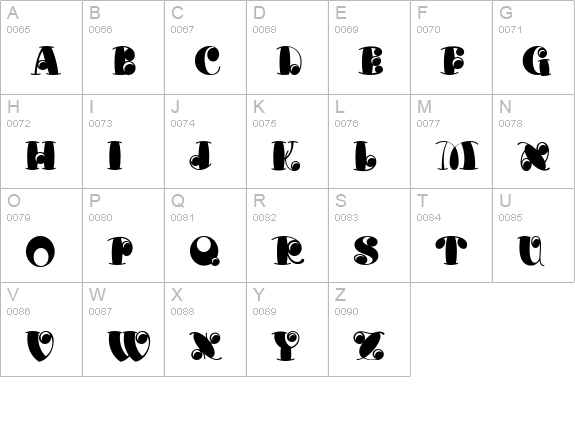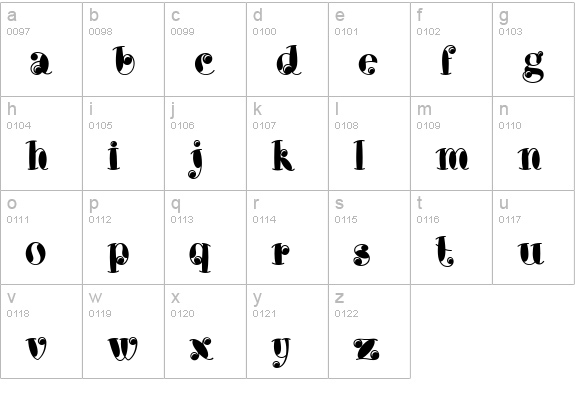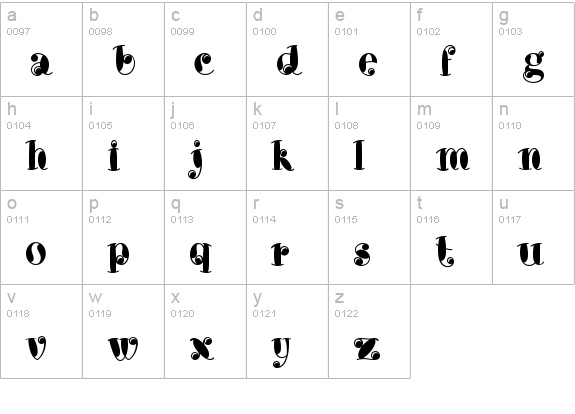
Catty Wumpas NF Font Details
Catty Wumpas NF is a whimsical and playful font that exudes charm and character. Its quirky design and unique letterforms make it perfect for adding a touch of personality to any project. This free font is a delightful choice for invitations, greeting cards, posters, and more. With its hand-drawn feel and fun style, Catty Wumpas NF is sure to capture the attention of your audience. You can freely download this font at FontsMarket.com and start using it in your creative endeavors today!